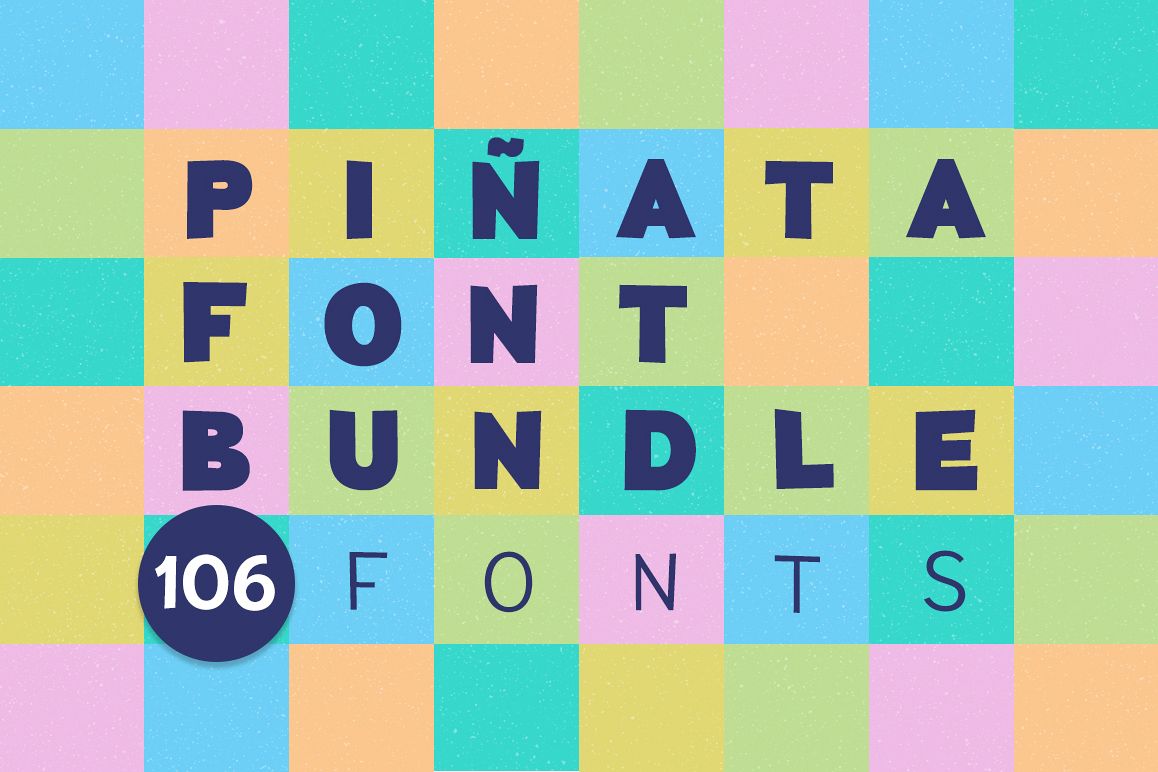
Piñata Font Bundle | 106 fonts
The font bundle from Piñata is on sale again, which means that all your favorite fonts are collected in one place and at the same time are offered for a great price. But do not think that this is the same bundle! Since the last release, 23 fonts were added to the bundle, and it now consists of a total of 106 fonts.
So why exactly the bundle of Piñata fonts? It's simple!
• Our bundle is very versatile—it features fonts of different types and styles.
• Our bundle is self-sufficient. All our fonts perfectly combine with each other and give you truly great opportunities in creativity.
• Our bundle is multilingual. Each Piñata font supports over 70+ languages, including Western, Central, Northern European languages and most Cyrillic languages*.
• Our bundle is organic. Most of the fonts in the bundle were drawn by hand before we digitized and transferred them into a font editor.
In the Piñata font bundle you will find a free Celestina script, which has never been presented at Designbundles.net before.
The scope of application of this bundle is enormous and is only limited by your imagination: branding, business cards, logos, all kind of packaging, postcards, invitation and congratulation cards, motivation posters, posters and stickers, cases and mugs, t-shirts and caps, kids clothing, any printed materials, hand-made and DIY projects, and a lot of other things.